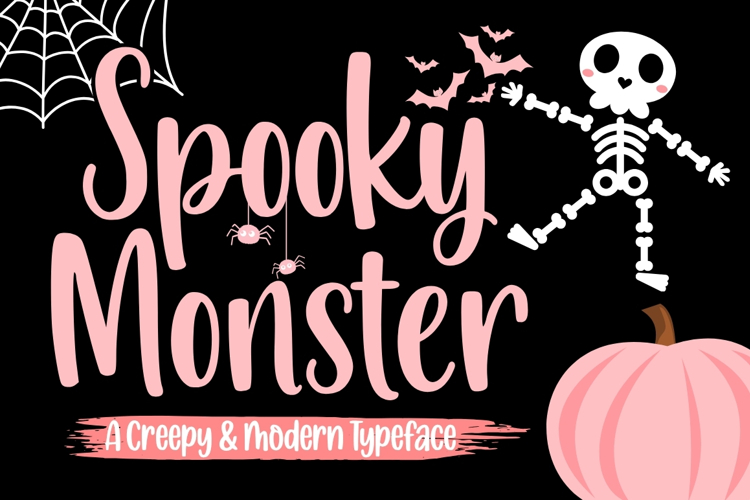
Spooky Monster is a playful and expressive display font with a fun Halloween-inspired character. Designed with a bold, quirky, and slightly creepy personality, this typeface brings a charming monster vibe to every design.
Perfect for Halloween invitations, posters, children’s products, party decorations, T-shirts, stickers, logos, packaging, social media graphics, and seasonal branding. Its unique character makes it easy to create eye-catching designs with a fun and mysterious atmosphere.
Let Spooky Monster add a little mischief, creativity, and spooky charm to your next project!